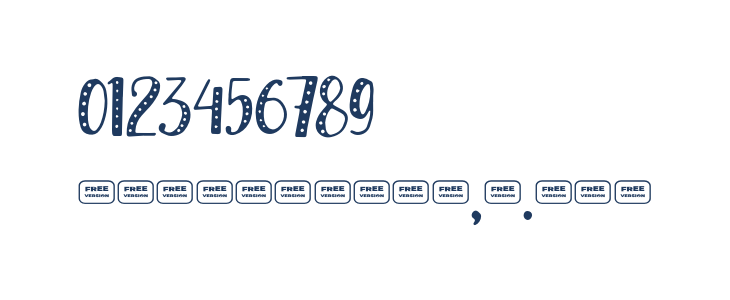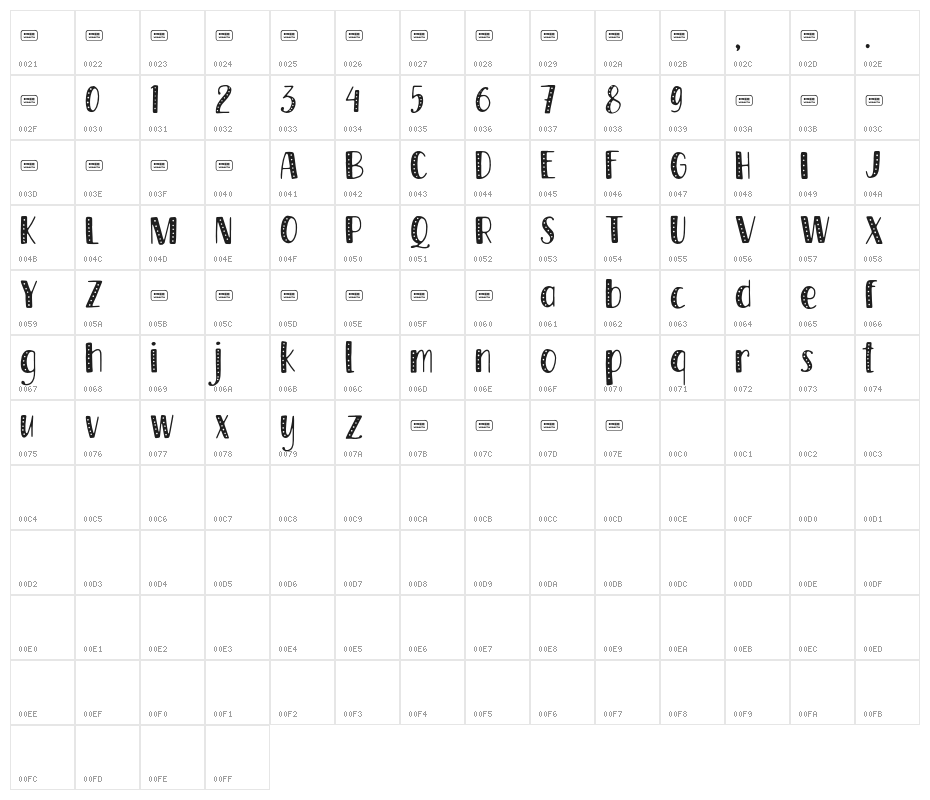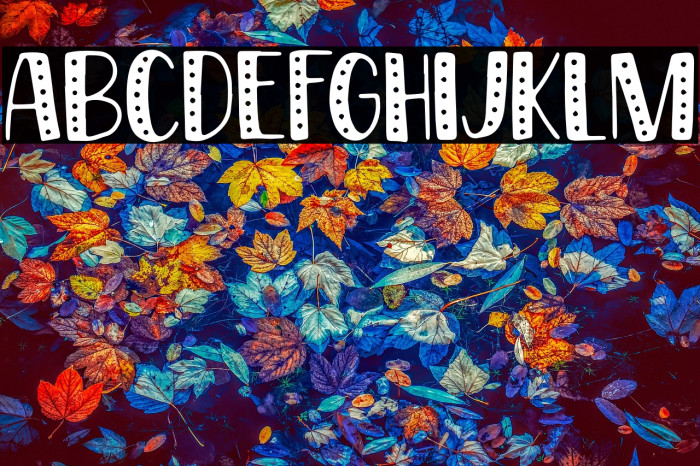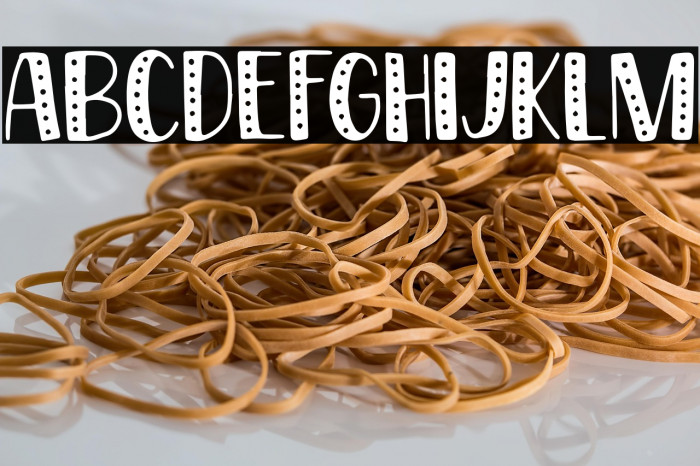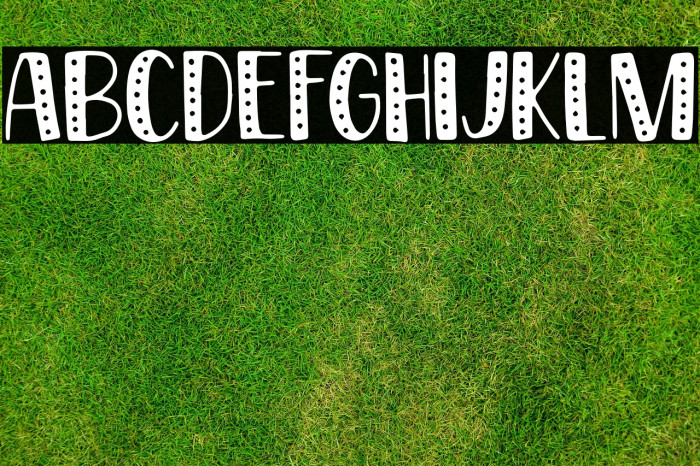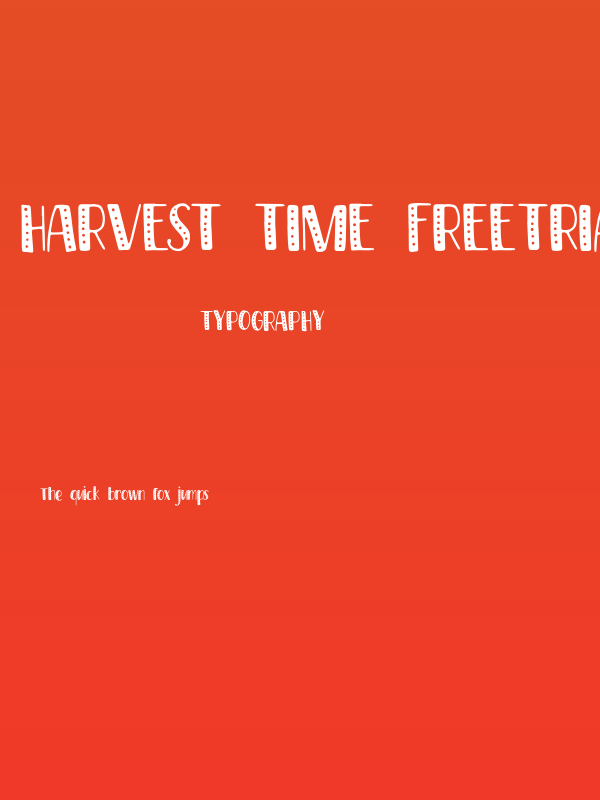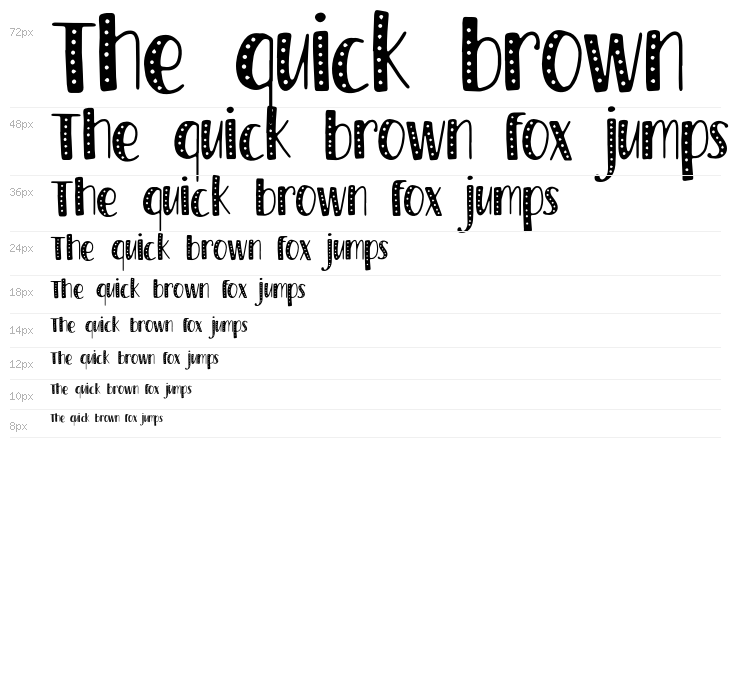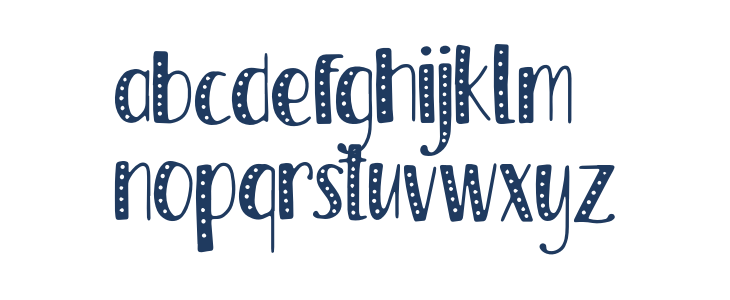
Harvest Time FreeTrial Font
Harvest Time FreeTrial Description
This font features a playful and whimsical design, characterized by its bold, rounded letters adorned with decorative dots. The uppercase and lowercase letters maintain a consistent style, with a slightly irregular, hand-drawn appearance that adds to its charm. The numbers follow the same playful theme, making them stand out with their unique design. The font includes a limited set of special characters, enhancing its versatility for creative projects. Its bold strokes and dotted embellishments make it ideal for eye-catching designs.
| Overall Style | Whimsical, Playful |